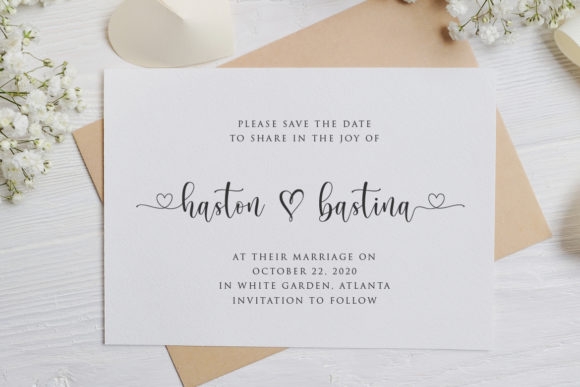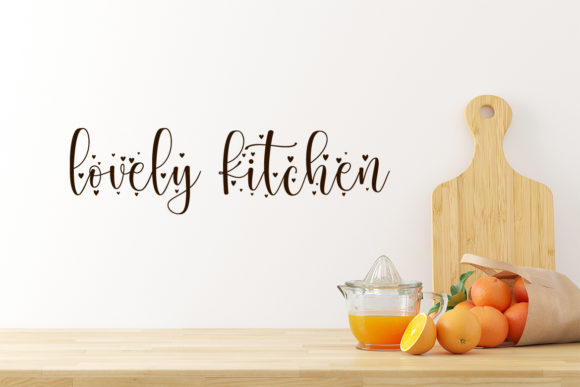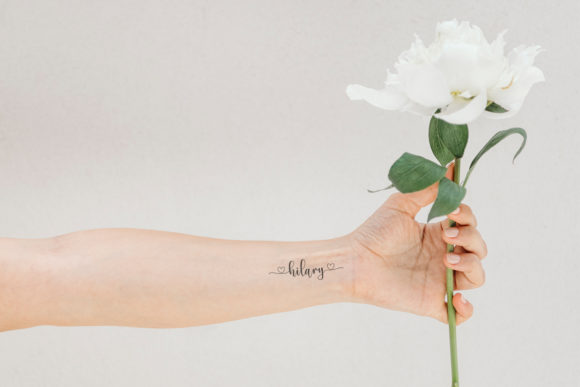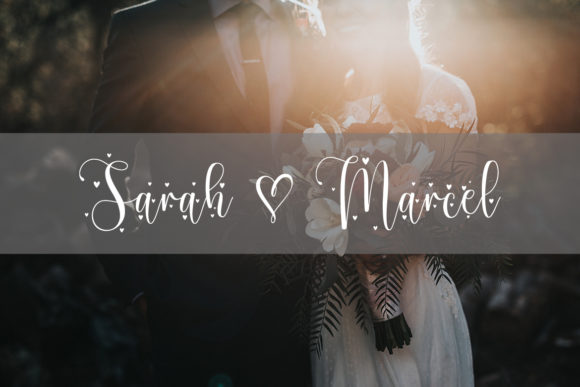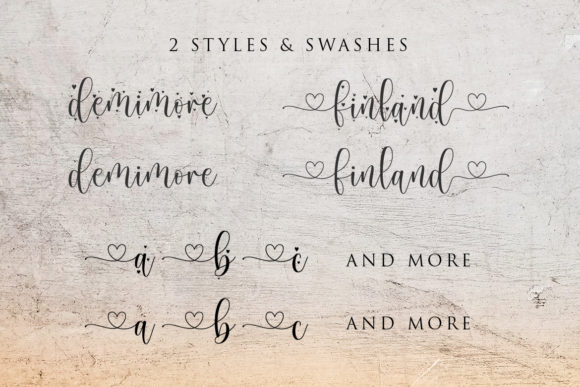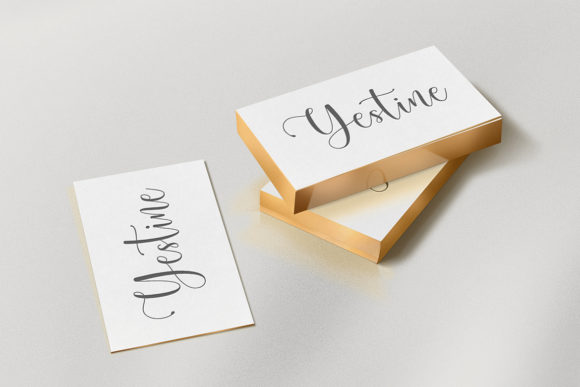
Introduction to Mother Tongue Font
As designers, we’ve all been there – staring at a blank page, trying to bring a creative project to life. The right font can make all the difference, setting the tone for a beautiful and cohesive design. And sometimes, it’s the perfect handwritten font that brings it all together.
That’s where the Mother Tongue Font comes in – a stunning, high-quality font that’s perfect for invitations, stationery, and wedding designs. With two styles and additional lowercase beginning and ending swashes, this font is a valuable resource for designers looking to add a personal touch to their creative projects. And the best part? It’s free to download, making it a transparent background for your designs.
Whether you’re working on a special event or simply want to elevate your design skills, the Mother Tongue Font is an excellent choice. Its versatility and high-quality design make it a must-have for any design enthusiast.
Key Features of Mother Tongue Font
- Unique and stylish design with a blend of modern and vintage elements, perfect for creative projects and designs.
- Perfect for use in various design contexts, including logos, branding, typography, and creative projects.
Honest Review: Mother Tongue Font
I recently had the chance to work with the Mother Tongue Font, and I must say it’s a great addition to any designer’s toolkit. The high quality and versatility of this font make it an ideal choice for creative projects.
- High-quality design: The Mother Tongue Font is beautifully crafted, with a clear and elegant design that’s perfect for any project.
- Limited character set: The Mother Tongue Font has a relatively small character set, which might be a drawback for designers working on longer texts.
- Not ideal for body text: Due to its elegant and decorative nature, this font is best suited for headings and titles rather than body text.
Overall, I’m impressed with the Mother Tongue Font, and I would definitely recommend it as a design resource for creative projects. While it may have some limitations, its high quality and flexibility make it a valuable addition to any designer’s toolkit.
Tips for Getting the Most Out of Mother Tongue Font
For optimal results, use the Mother Tongue Font with a transparent background to create a seamless design. Experiment with different font sizes, colors, and combinations to achieve a unique look.
The Mother Tongue Font is suitable for a wide range of creative projects, including logos, business cards, brochures, and more. Its versatility and high quality make it an excellent design resource for designers and non-designers alike.